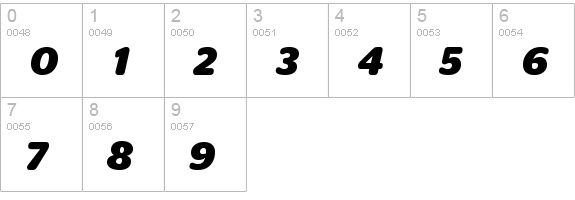
Stag Sans Round Bold Italic Font Details
Stag Sans Round Bold Italic is a strong, high-contrast, italic variant in the Stag typeface family \xE2\x80\x94 well suited to headlines, attention-grabbing titles, and strong calls-to-action.
Introducing Stag Sans Round Bold Italic font - a bold and dynamic typeface that exudes modernity and sophistication. This sleek and stylish font is perfect for making a statement in your designs, whether for headlines, logos, or branding projects. The unique rounded edges of the characters give Stag Sans Round Bold Italic a friendly and approachable feel, making it versatile for a wide range of design applications. Best of all, Stag Sans Round Bold Italic font is available for free download at FontsMarket.com. This means you can access this eye-catching font without any cost, allowing you to elevate your designs without breaking the bank. Don't miss out on the opportunity to add Stag Sans Round Bold Italic to your font collection today and make your projects stand out with its bold and italicized charm.